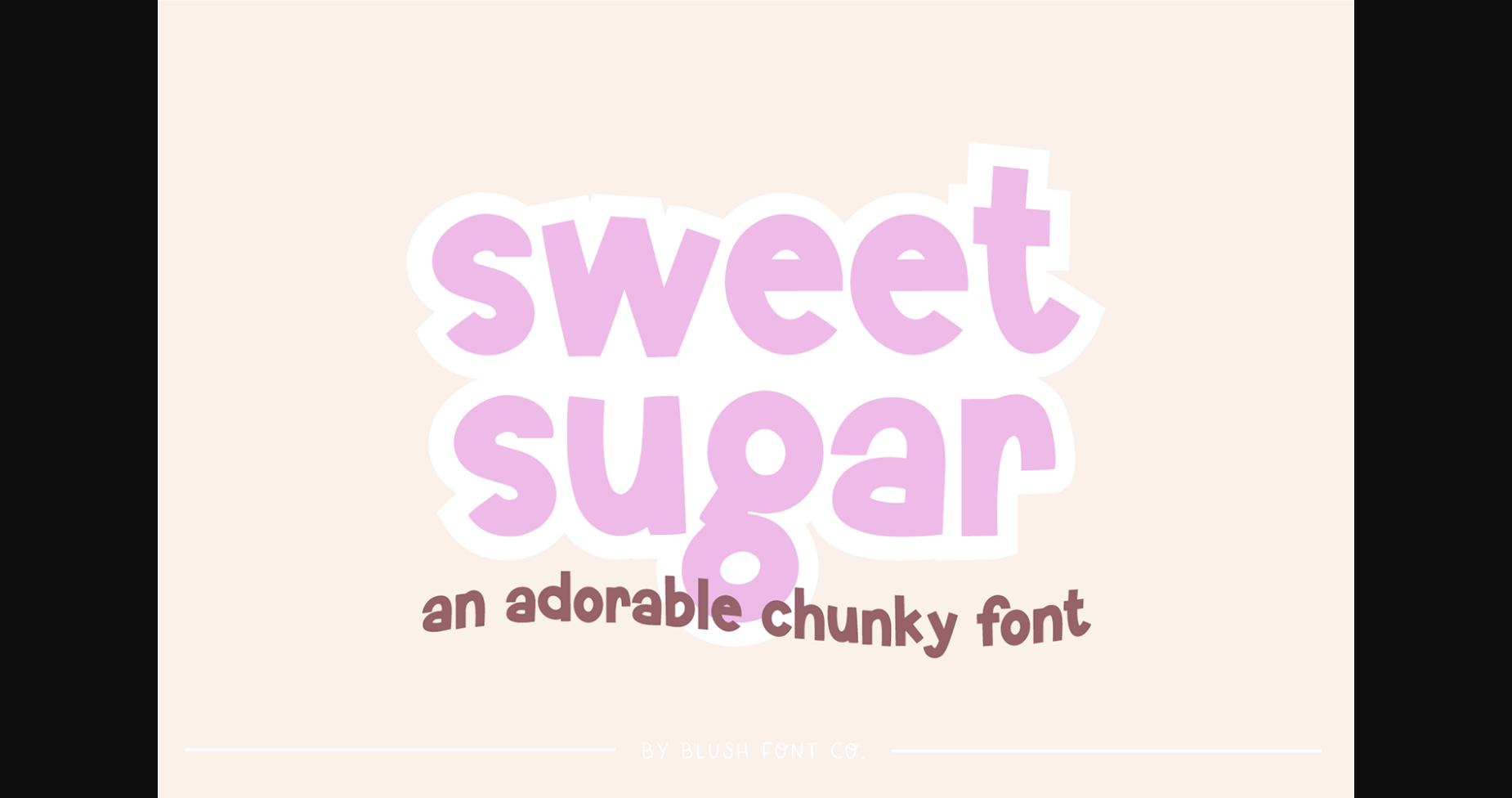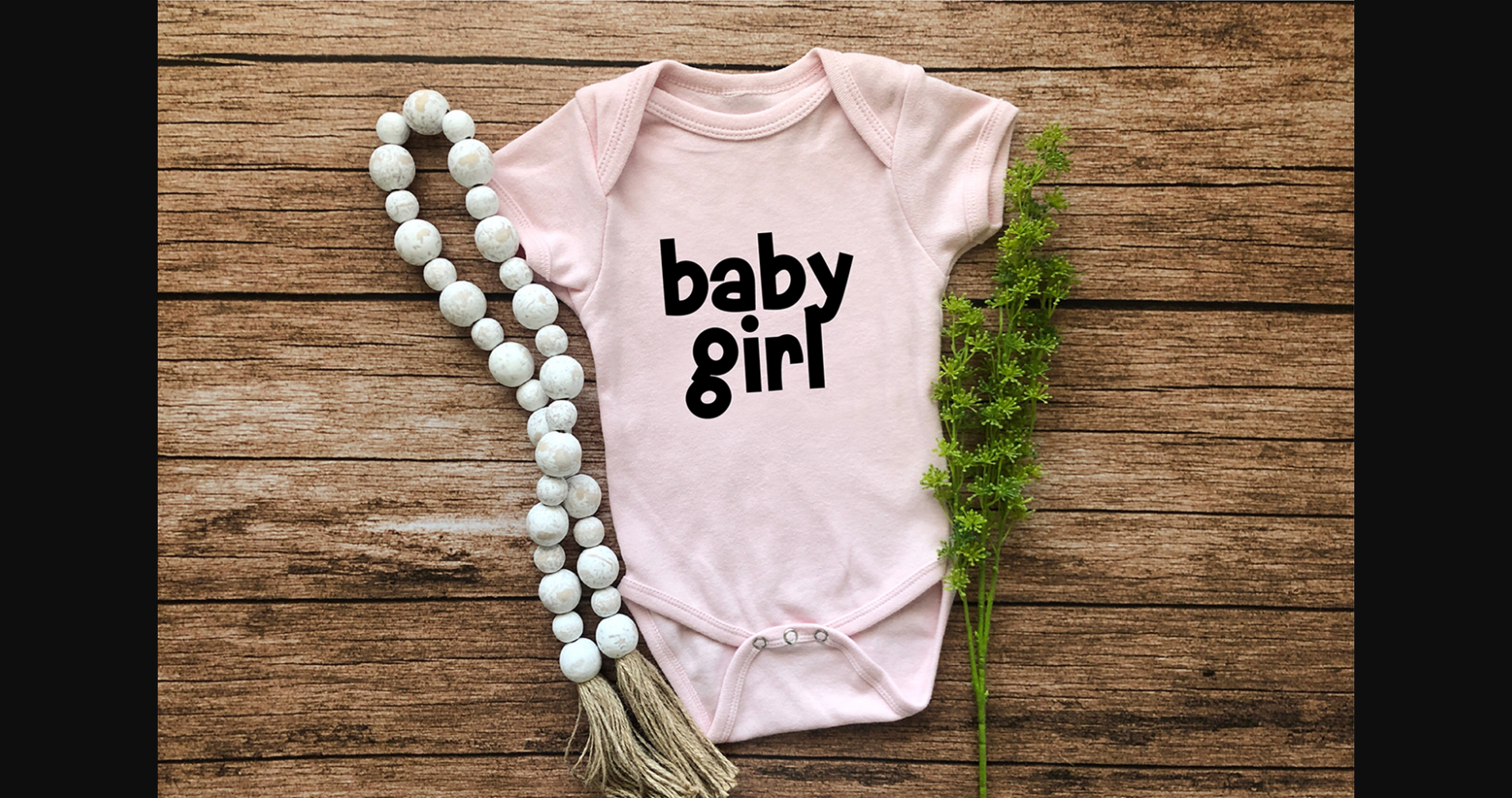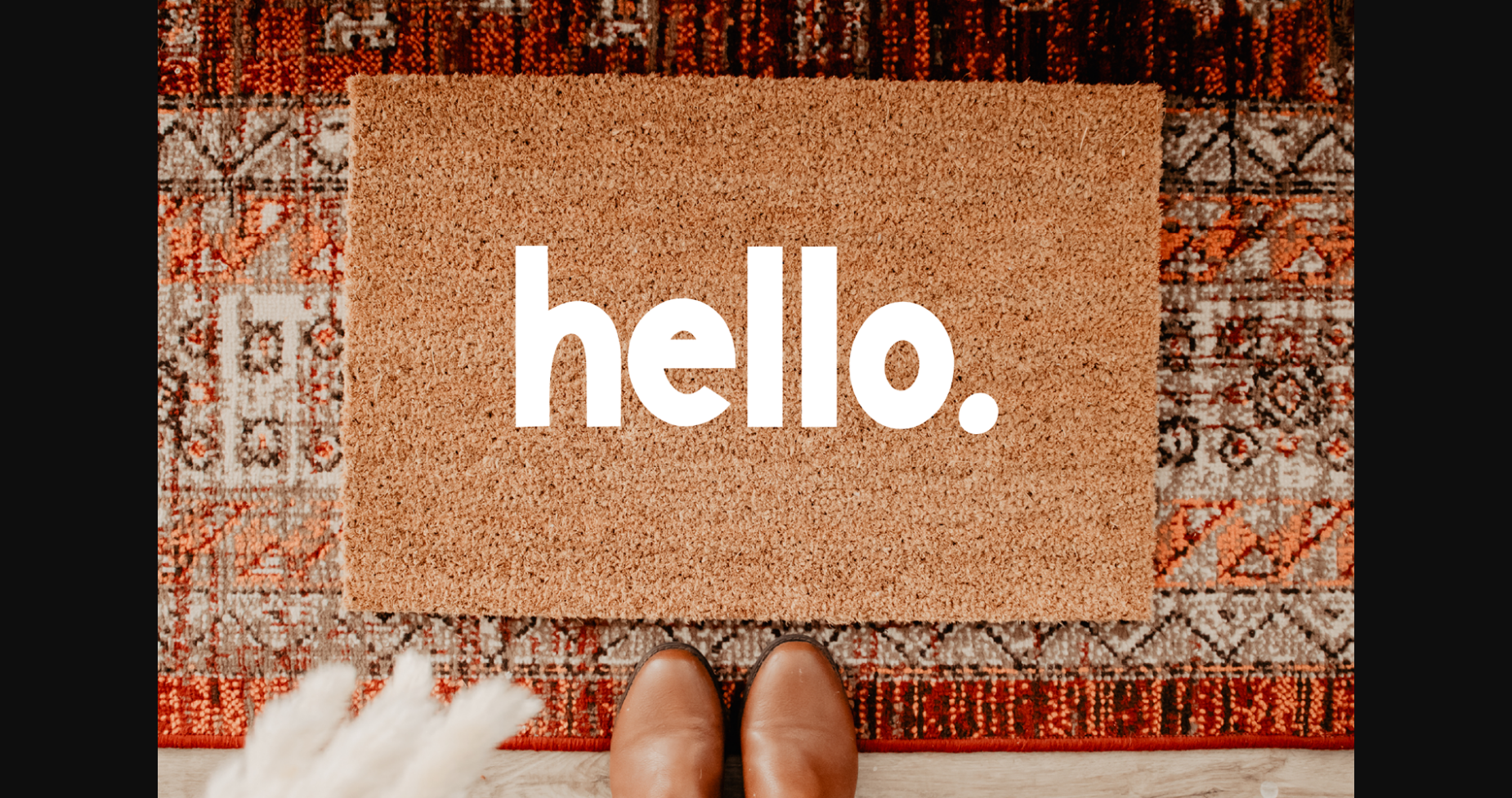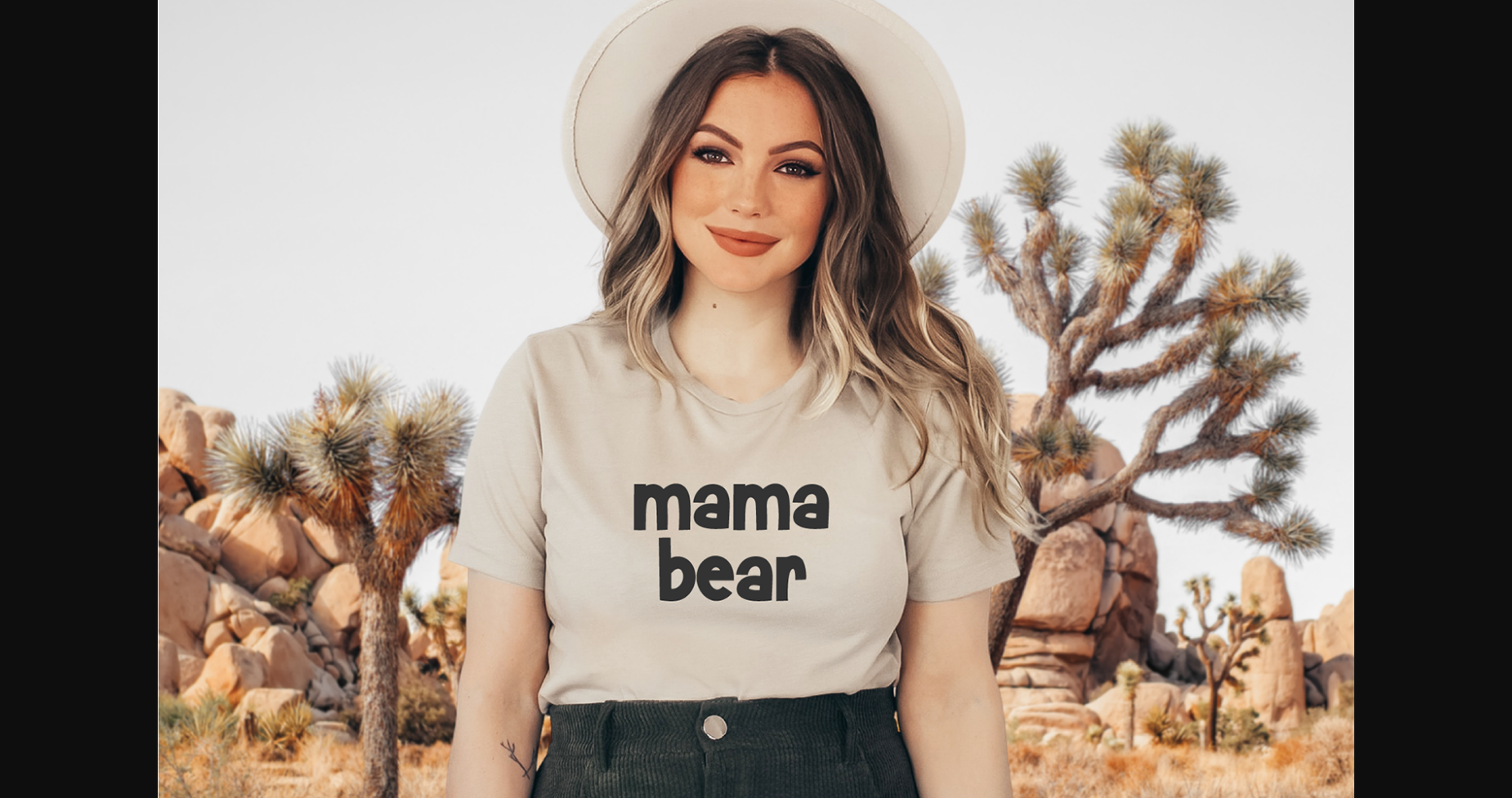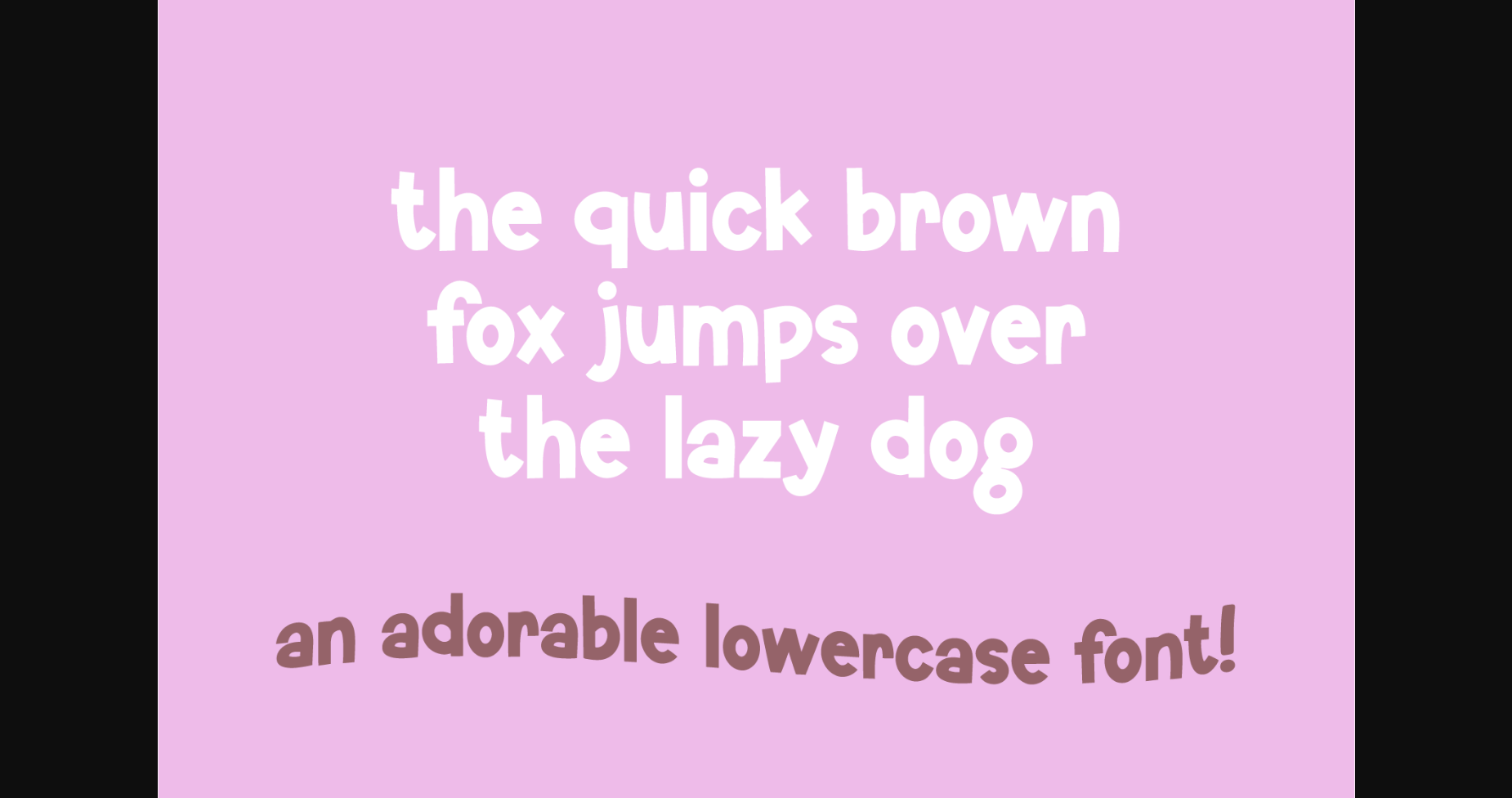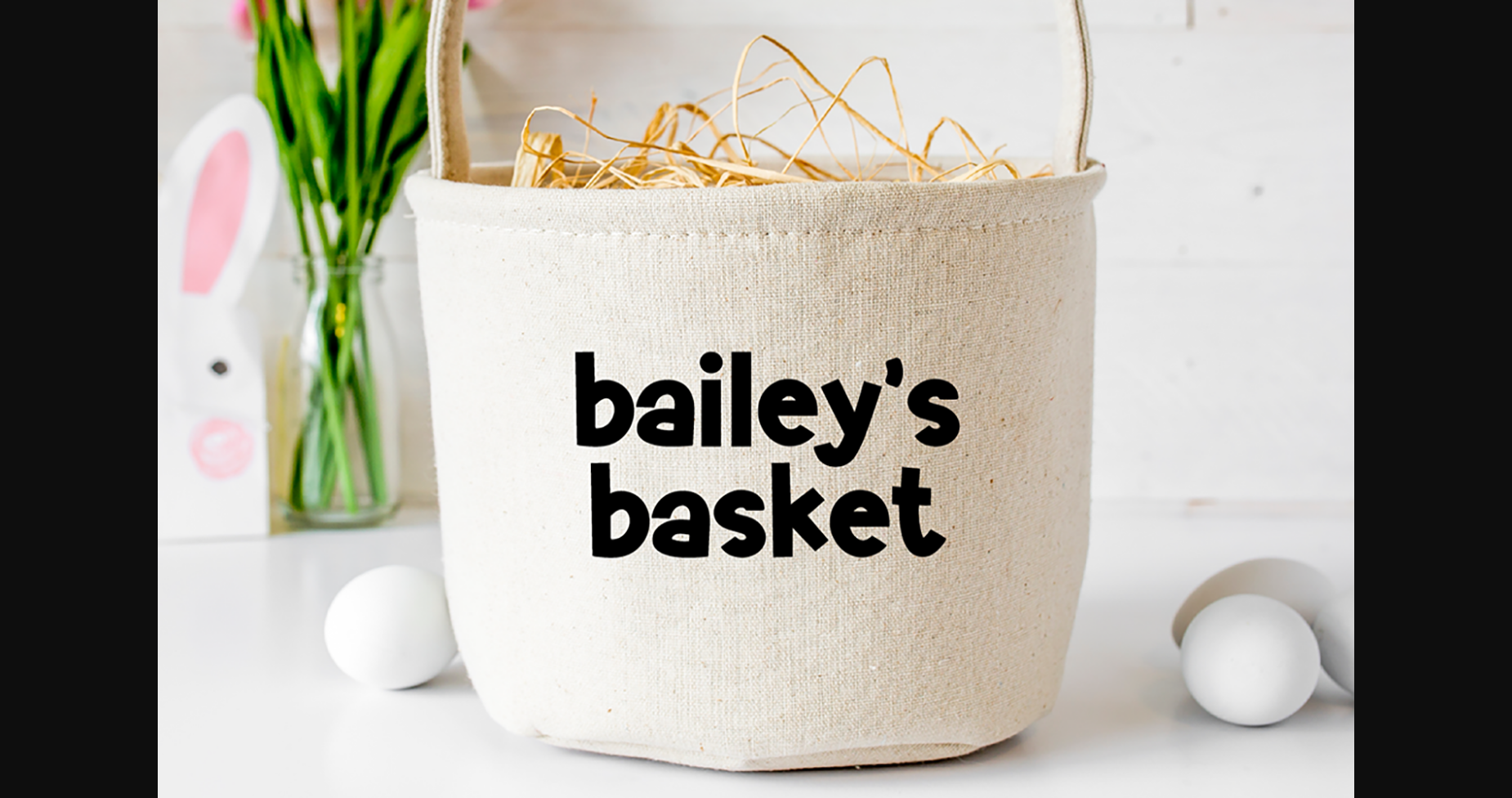
Sweet Sugar is a chunky and cute feminine font. This font is an adorable bold font that is perfect for social media or crafty projects. Use it for branding, crafts for decor, invitations, and more!